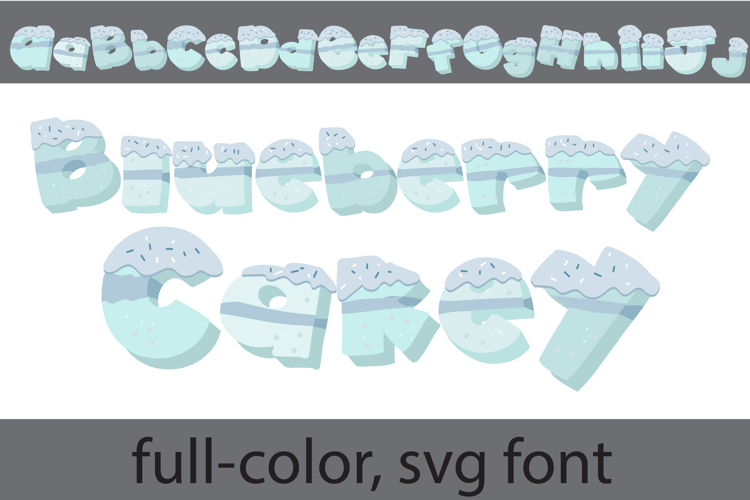
Blueberry Cakey Color Font
This hand-crafted font is a full-color font featuring a layered blueberry cake. There is an alt case of each letter with a different color combination.